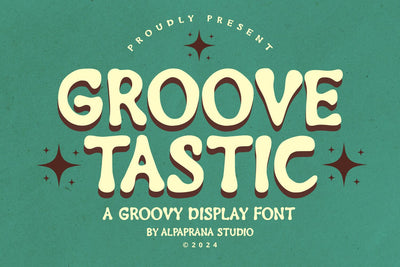
Groovetastic - Groovy Font
Groovetastic is a groovy display font with authentic and retro feels. It will be perfectly used for Branding, Logo Design, Lettering, Logotype, Clothing, Poster, magazine, packaging, posters, shopping bags, t-shirts, book covers, photography, special events and other design project.